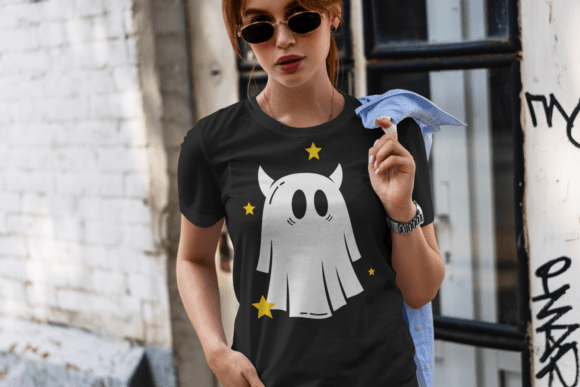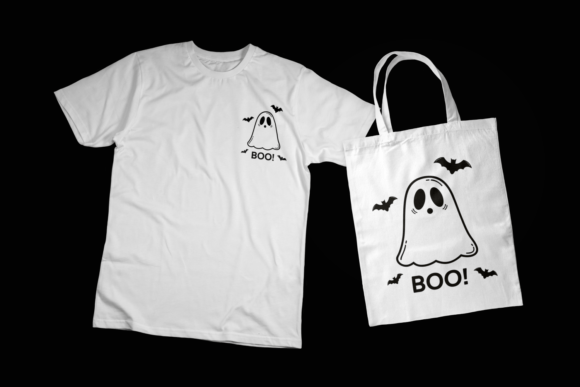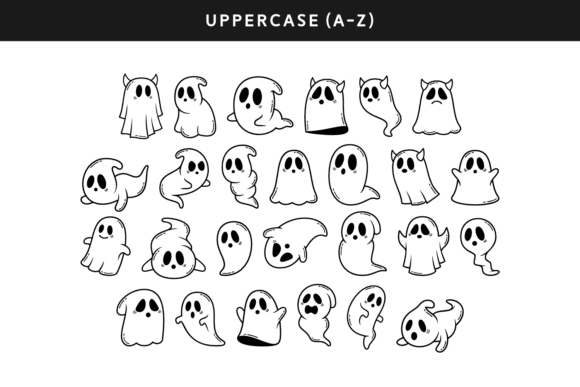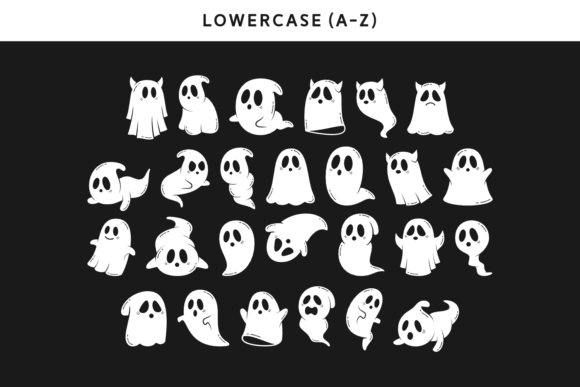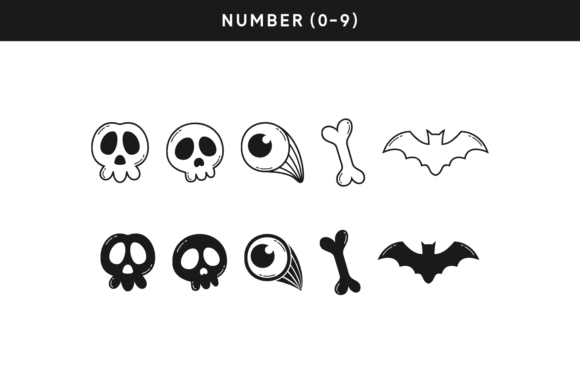
Unleash the Spookiness with Fly Ghost Font: A Comprehensive Guide
As a designer or crafter, you’re always on the lookout for unique and creative assets to elevate your projects. If you’re working on a Halloween-themed design or a project that requires a touch of spookiness, the Fly Ghost Font is an excellent choice. This distinctive dingbats font offers a comprehensive collection of spooky and playful characters that will add a new level of expressiveness to your designs.
What Makes Fly Ghost Font Stand Out?
The Fly Ghost Font is not your traditional font. Unlike standard alphabetical fonts, this dingbats font features a wide range of illustrative characters that are perfect for themed designs. With two full sets of ghostly figures mapped to the uppercase and lowercase keys, you’ll have access to a vast array of unique ghost poses, expressions, and designs. Whether you’re creating Halloween-themed merchandise, decorations, or digital content, this font provides the versatility you need.
A Wealth of Ghostly Characters at Your Fingertips
The Fly Ghost Font boasts an impressive collection of ghost characters, with two complete sets available through the uppercase and lowercase keys. This extensive range allows you to choose from numerous ghost poses and expressions, ensuring that your designs are always fresh and engaging. From playful and cute to spooky and eerie, the ghost characters in this font cater to various design needs and preferences.
Beyond Ghosts: Additional Icon Characters
But that’s not all. The Fly Ghost Font also includes a separate set of related icon characters that can add an extra layer of thematic decoration to your designs. These icons feature elements like skulls, eyeballs, bones, and bats, providing you with even more creative options. With these supplementary icons, you can create visually appealing and cohesive designs that capture the essence of the spooky season.
Perfect for Designers, Crafters, and Small Business Owners
The Fly Ghost Font is an excellent resource for designers, crafters, and small business owners who focus on seasonal or novelty products. Whether you’re creating merchandise, such as t-shirts, mugs, or trick-or-treat bags, or designing decorations and digital content for Halloween, this font offers the creative assets you need. Its features, including the multiple ghost variations and supplementary icons, provide the versatility required to produce a wide range of products.
Ideas for Using Fly Ghost Font
So, how can you use the Fly Ghost Font in your projects? Here are a few ideas to get you started:
- Halloween-themed merchandise, such as t-shirts, mugs, and trick-or-treat bags
- Seasonal decorations, like garlands, banners, and signs
- Digital content, including social media graphics, blog posts, and email newsletters
- Party invitations and decorations, such as ghostly garlands and spooky centerpieces
- Novelty items, like stickers, stencils, and iron-on transfers
Tips for Getting the Most Out of Fly Ghost Font
To maximize the creative potential of the Fly Ghost Font, consider the following tips:
- Experiment with different ghost poses and expressions to add visual interest to your designs
- Combine ghost characters with the supplementary icon characters for a more dynamic look
- Use the font in conjunction with other design elements, such as patterns and textures, to create a cohesive design
- Don’t be afraid to get creative and try out new and unusual design ideas
The Fly Ghost Font is a valuable resource for designers, crafters, and small business owners looking to add a touch of spookiness to their projects. With its extensive collection of ghostly characters and supplementary icon characters, this font offers the versatility and creative freedom you need to produce high-quality designs. Whether you’re working on Halloween-themed merchandise, decorations, or digital content, the Fly Ghost Font is an excellent choice. So why not give it a try and unleash the spookiness in your designs?